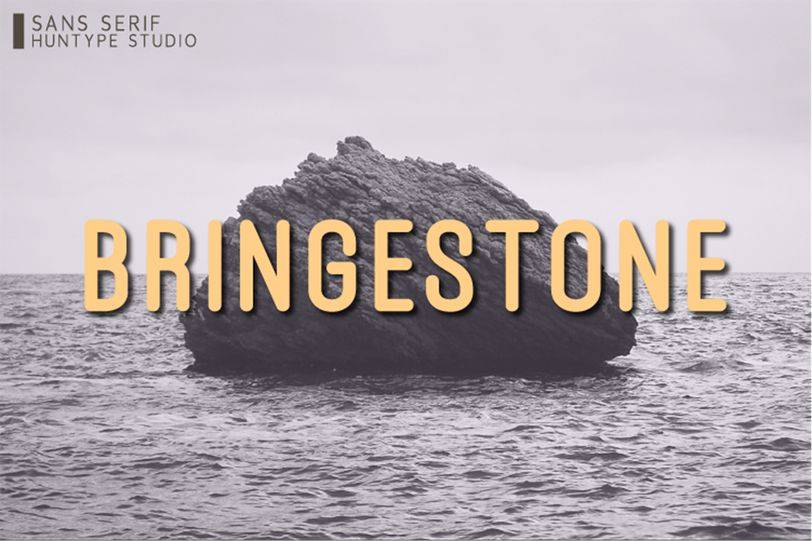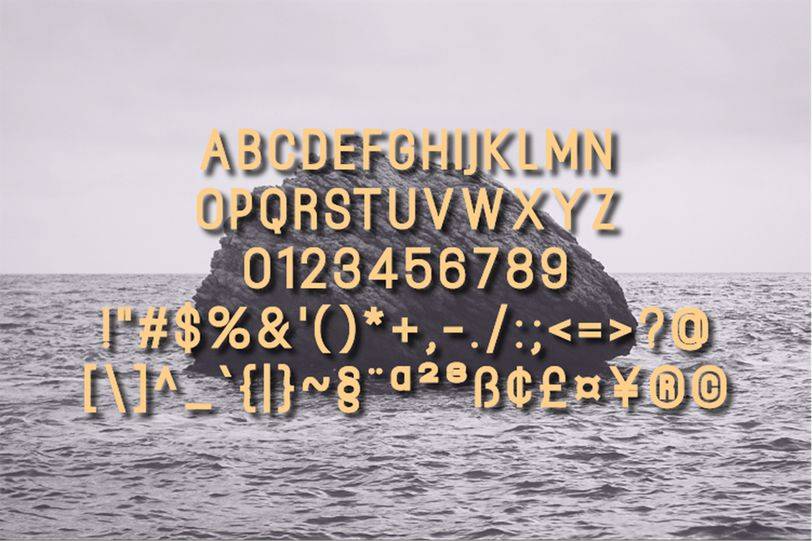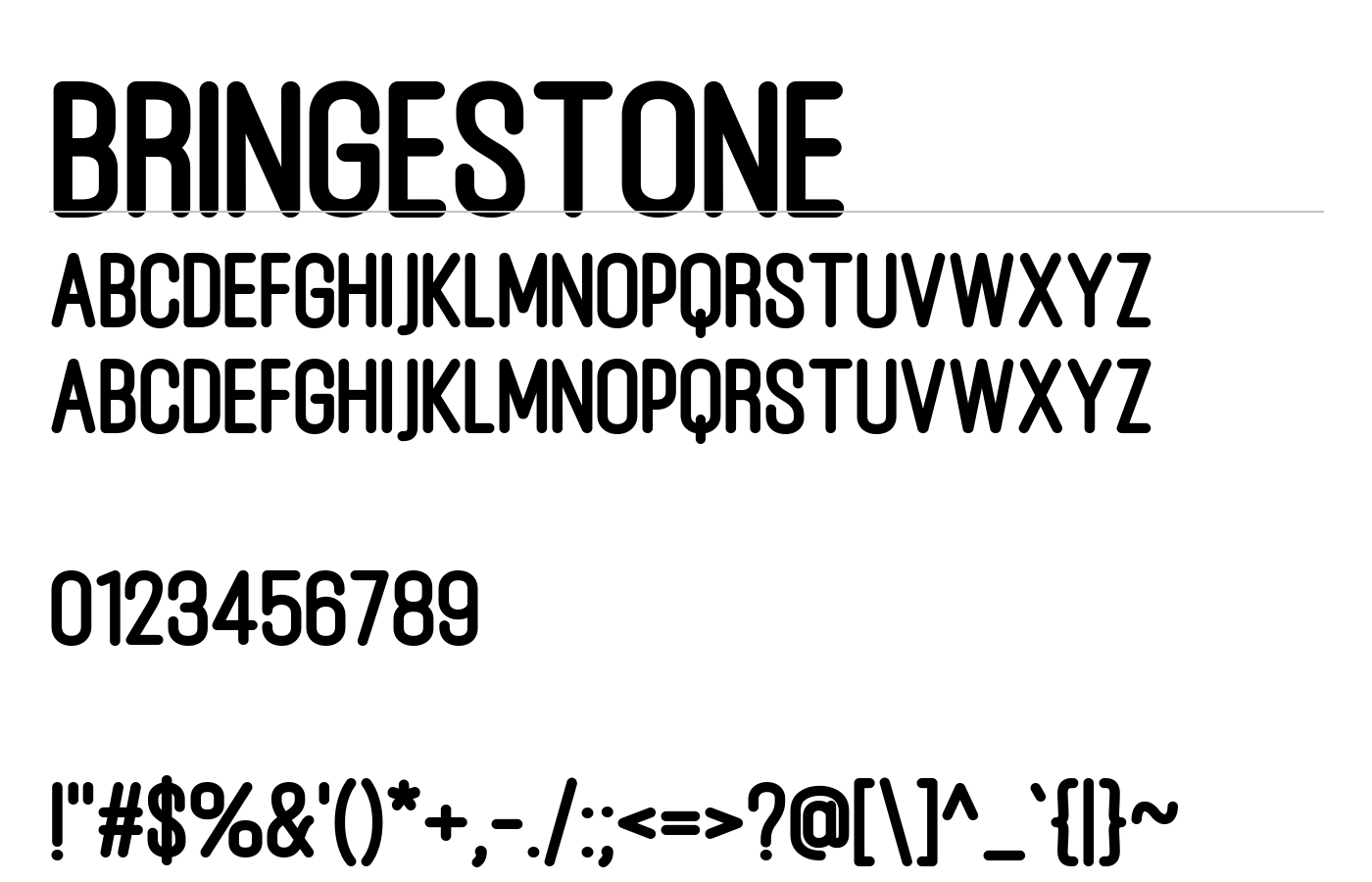
Bringestone is a modern, condensed sans serif font with clean, rounded edges that give it a friendly and approachable feel. Its uniform stroke weight and tall x-height make it highly legible, ideal for bold headlines or branding that seeks a contemporary yet welcoming look. This font works well for logos, posters, and websites where clarity and style need to blend effortlessly.
Bringestone Font
About Bringestone Font